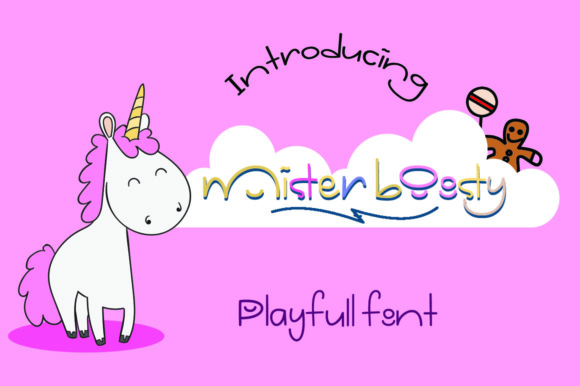
Mister Boosty Font
Get ready to sprinkle a touch of cheerful charm into your digital creations with Mister Boosty, a captivating script font family crafted by the talented dmletter31. This adorable sans serif font exudes a playful, childlike aura that brings life to your designs with its whimsical strokes inspired by kids' handwriting.
Mister Boosty possesses a unique personality that adds a spark of fun and lightheartedness to your projects. It's perfect for t-shirt designs, logos, and print materials that aim to engage and delight audiences. Whether you're creating social media posts, advertisements, product packaging, or quirky quotes, Mister Boosty will elevate your designs with its vibrant and charming spirit.
Dive into the world of Mister Boosty and discover a treasure trove of handmade ornaments that will infuse your designs with an extra layer of cheerfulness. These delightful embellishments are like tiny confetti, adding a dash of magic and happiness to every project. With Mister Boosty, you'll have the power to transform your digital creations into heartwarming expressions that resonate with everyone.
Unlock the boundless potential of Mister Boosty and unleash your creativity. Its versatility shines across a wide range of applications, from t-shirt designs that exude personality to captivating logos that leave a lasting impression. Print materials come alive with Mister Boosty's playful touch, capturing attention and igniting imaginations.
Join the growing community of designers who have embraced the whimsical allure of Mister Boosty. Let your designs radiate joy and laughter as you weave your creative magic with this extraordinary font family. Experience the transformative power of Mister Boosty today and embark on a delightful journey of artistic expression!